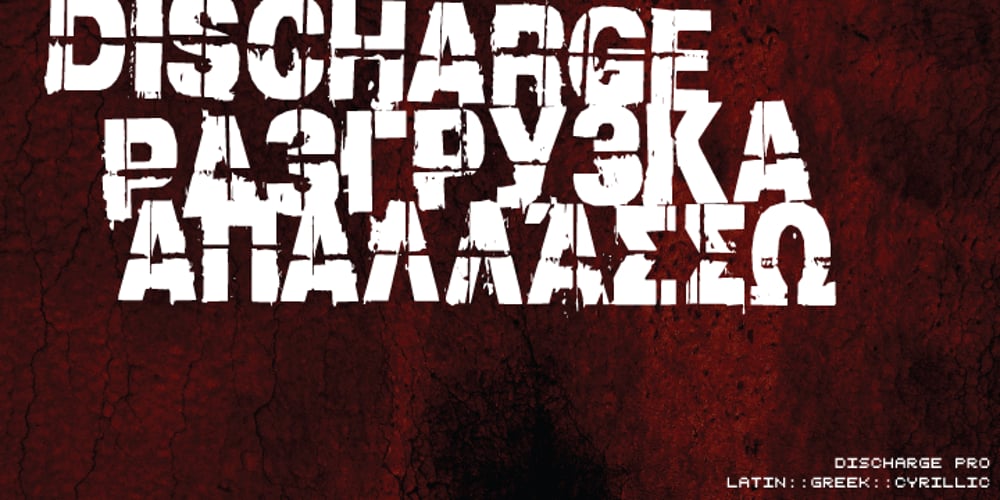
Discharge Pro
Discharge Pro font
Discharge Pro Font Family was designed by Michael Wallner and published by The Type Fetish. Discharge Pro contains 1 styles and family package options. Discharge is a bold, heavy, distressed and destroyed sans serif typeface. It was started alongside Universally Corrupt and Insurgent, but it took a couple extra years to finish. It was expanded to include extended Latin, extended Cyrillic and Greek alphabets, so it will work with most languages in Europe and the Americas.